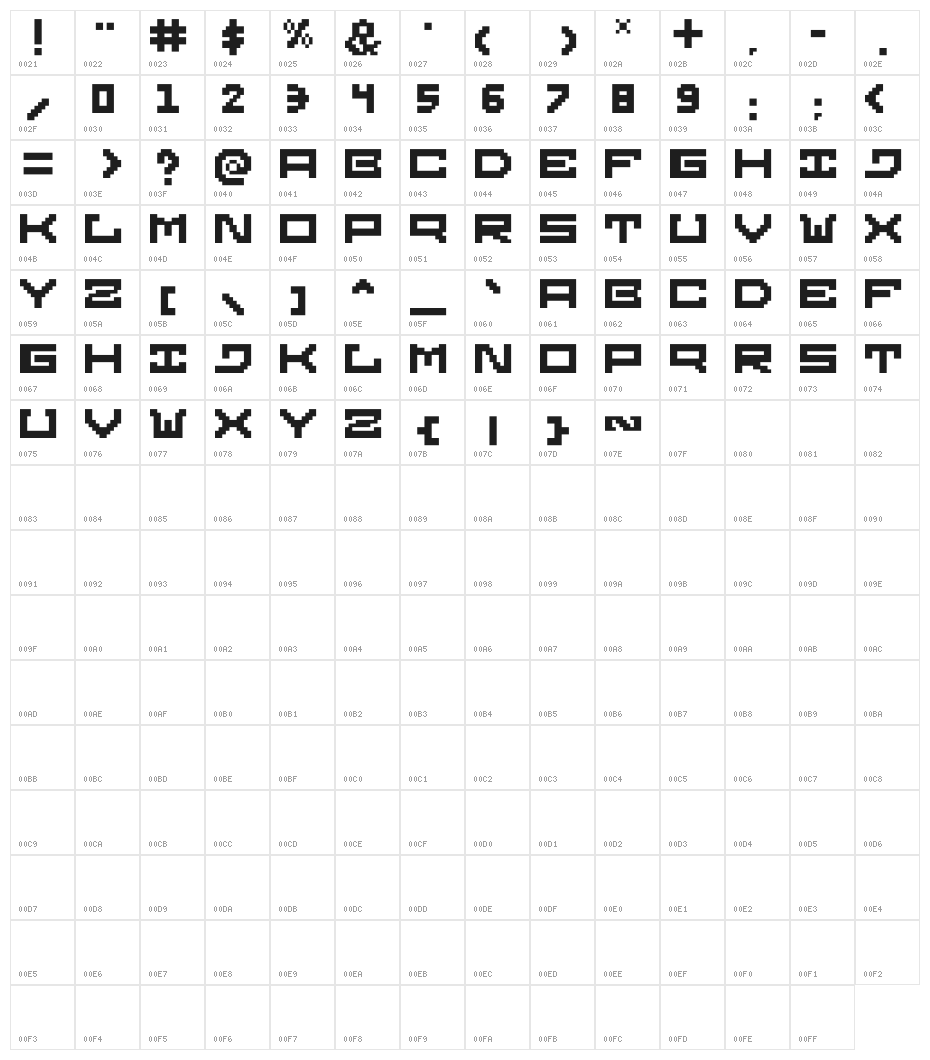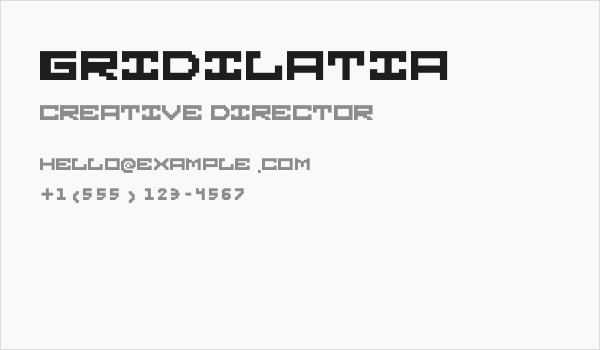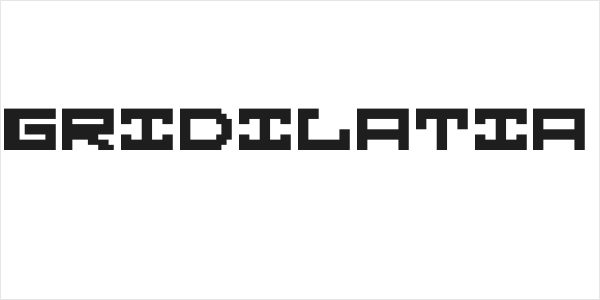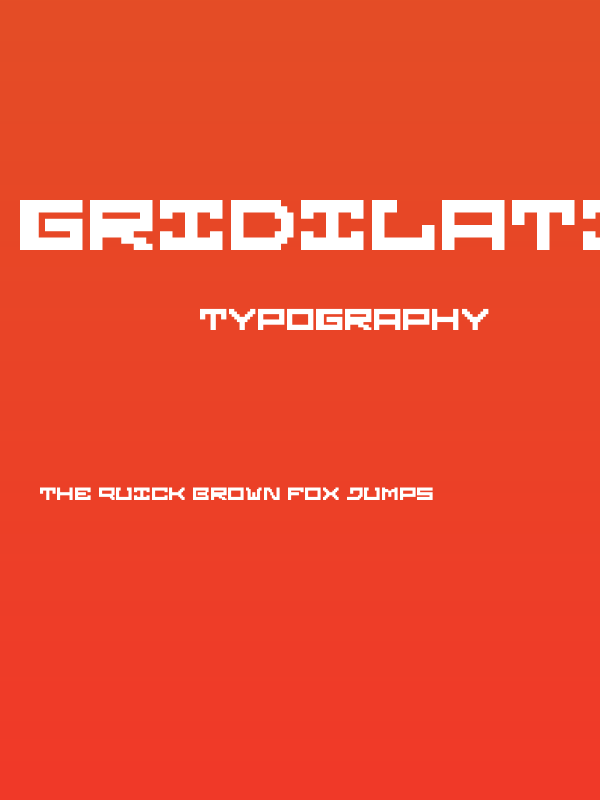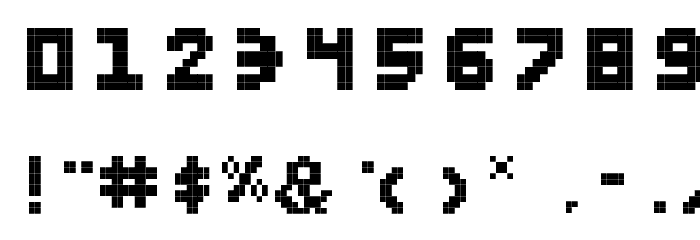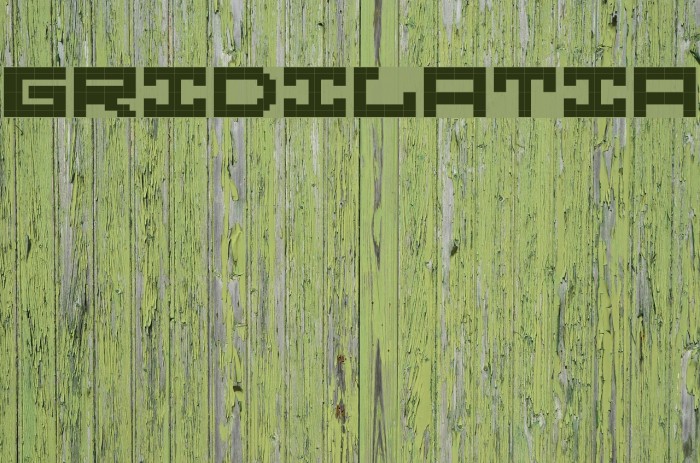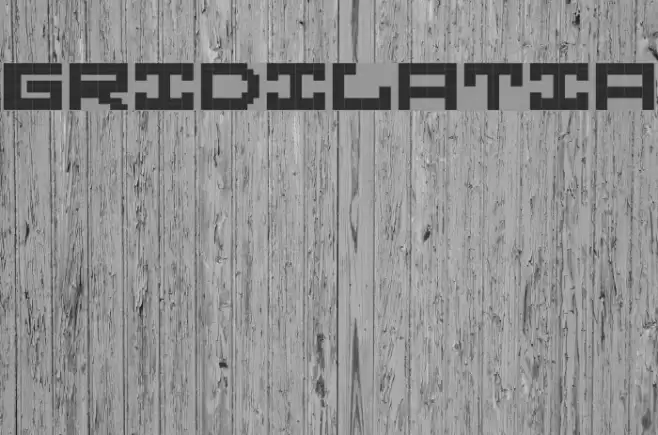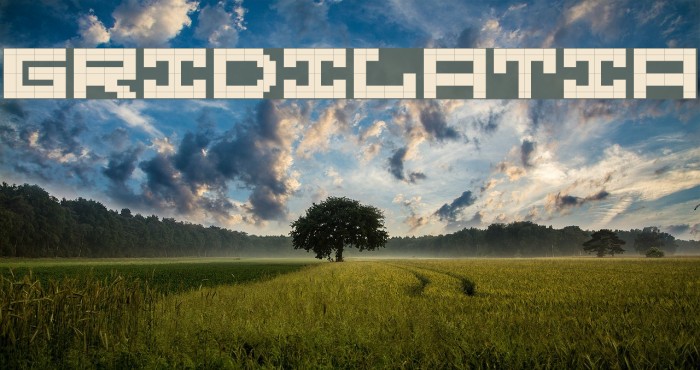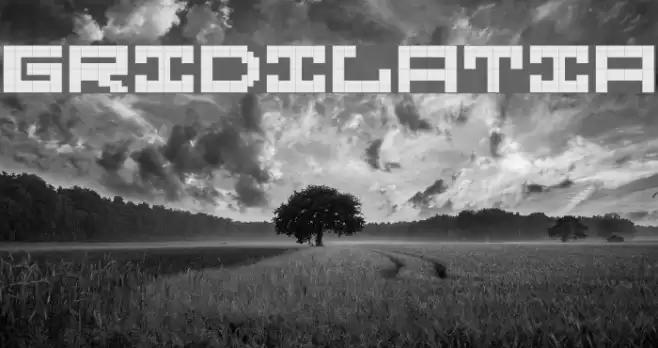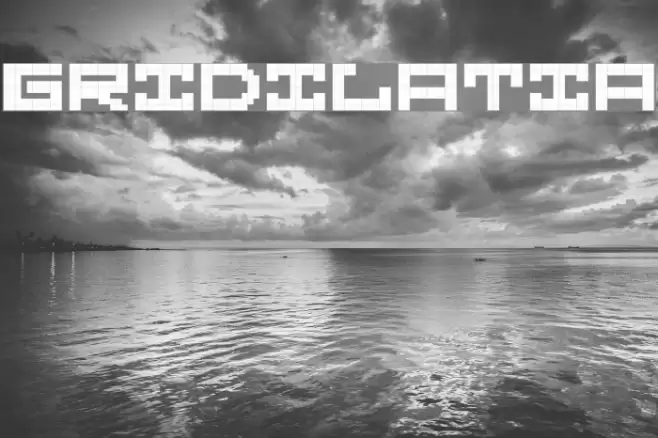
Gridilatia Font
Gridilatia Description
This font features a unique, grid-like structure that gives it a digital, pixelated appearance. Each character is composed of small square blocks, creating a distinct and modern aesthetic reminiscent of early computer graphics or digital displays. The uniformity in the block size across all characters ensures a cohesive look, while the geometric shapes provide a sense of order and precision. This style is particularly effective for conveying a technological or futuristic theme. The font maintains a consistent height and width for each character, enhancing readability despite its unconventional design.
| Use Case | Logos, Headlines, Digital displays |
| Proposed Projects | Ideal for digital art, video game design, tech-themed posters, and retro-style branding. |